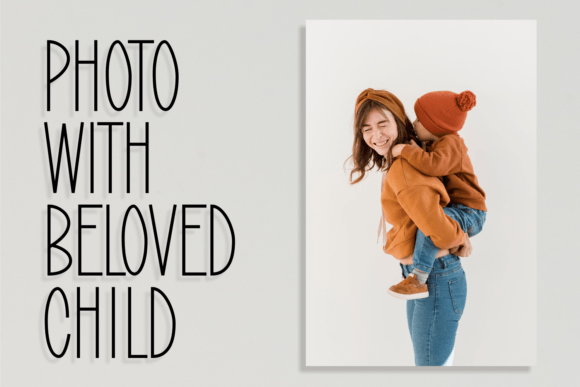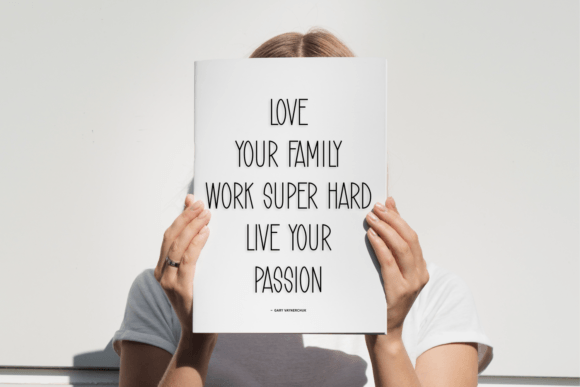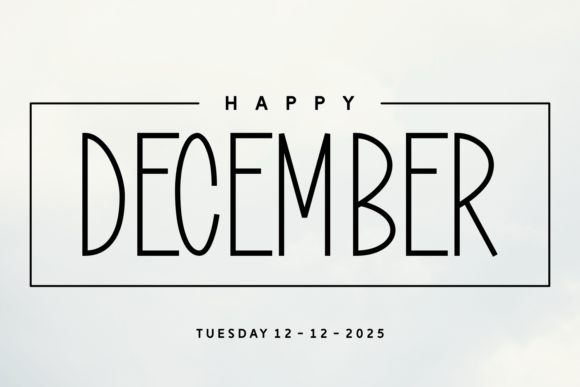
Introduction to Falling Dreams Font
Falling Dreams is a modern sans-serif font that blends elegance with minimalism.
Its clean lines and smooth curves evoke a sense of calm and sophistication, making it ideal for branding, headlines, and creative projects Perfect for dreamlike designs and contemporary aesthetics.
Key Features of Falling Dreams Font